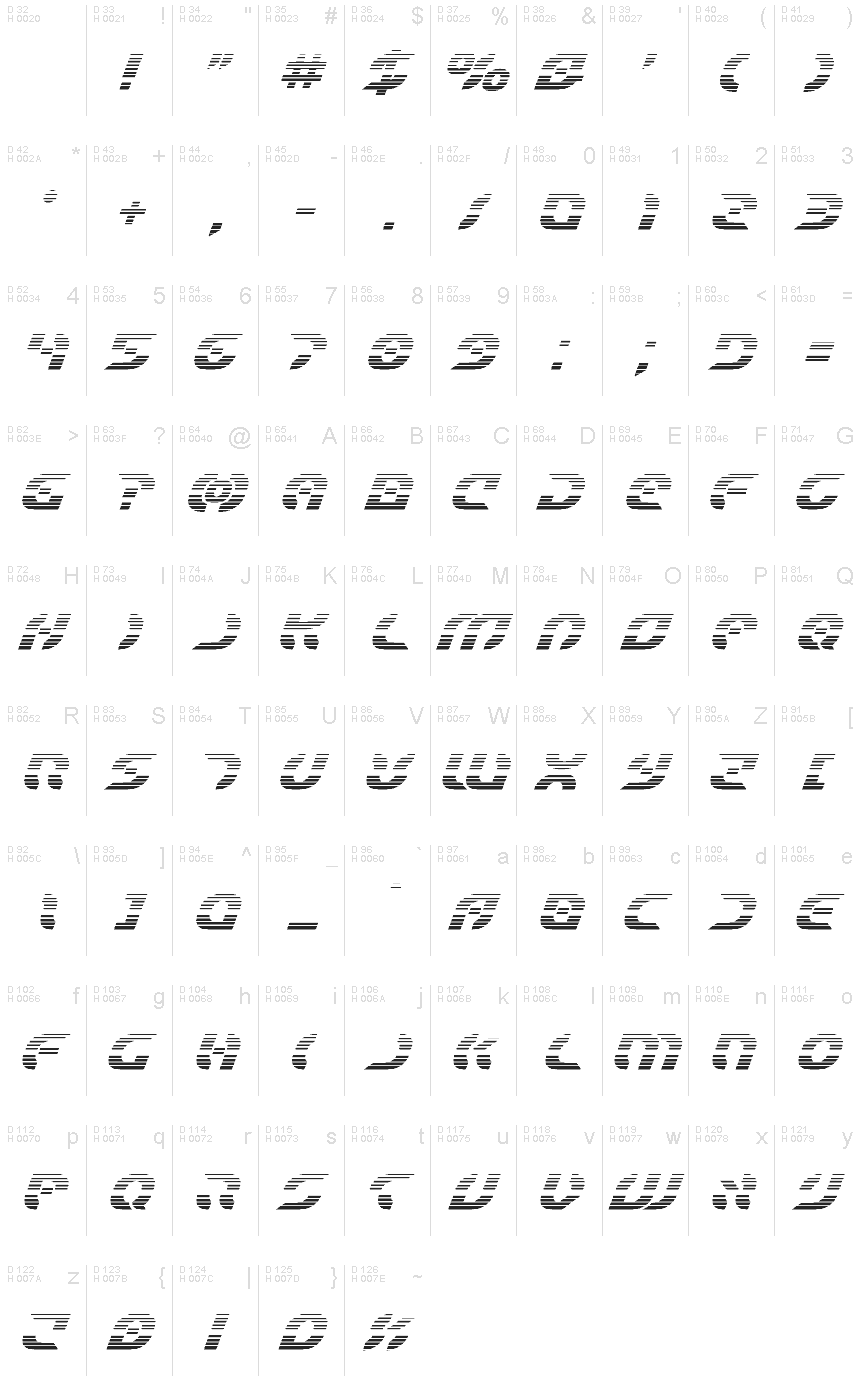
Starfighter Bold Gradient Ital
Starfighter Bold Gradient Italic font by Iconian Fonts combines futuristic aesthetics and geometric patterns in ornamental display letters. In addition to having a digital appearance inspired by sci-fi films, the expanded design makes the characters seem highly visible and strong. The free display font leaves a memorable impression, especially if you use the striped gradient version showcased in this file.
Suitable projects in which Starfighter can be used include logo design, movie and video game at works, music album covers, editorail creations such as posters or magazine covers, documentary titles or trailers, schoolbooks etc. It’s also suitable for shop signage, book covers, typography logos or each of letter initials as standalone elements to be used anywhere.